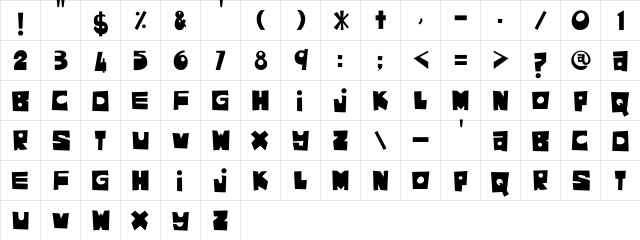
Asam Kelubi Regular
Design Context for Asam Kelubi Typeface
Asam Kelubi is a composed and adaptable typeface that performs quietly and consistently across a wide range of design contexts.